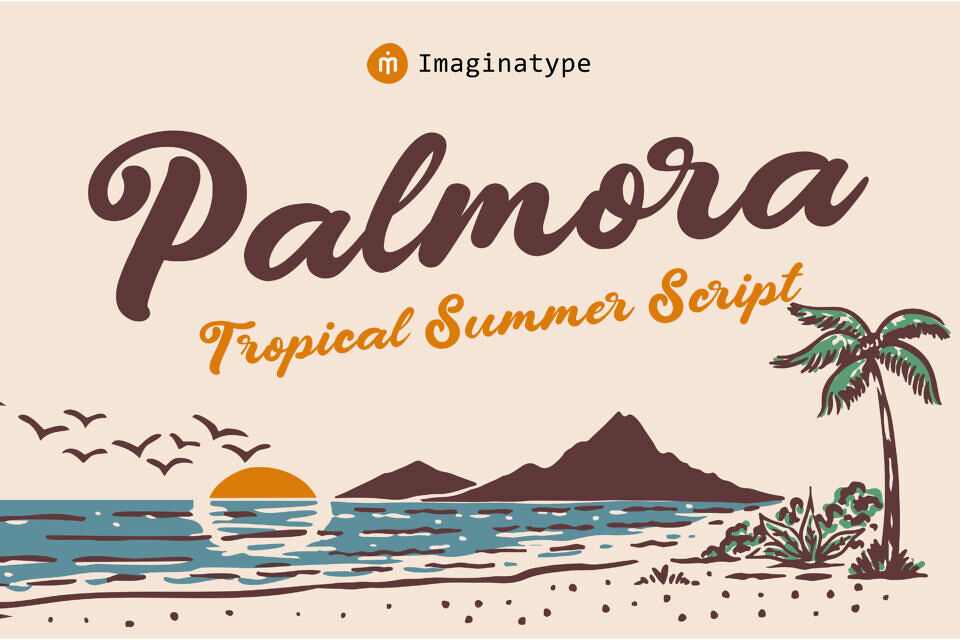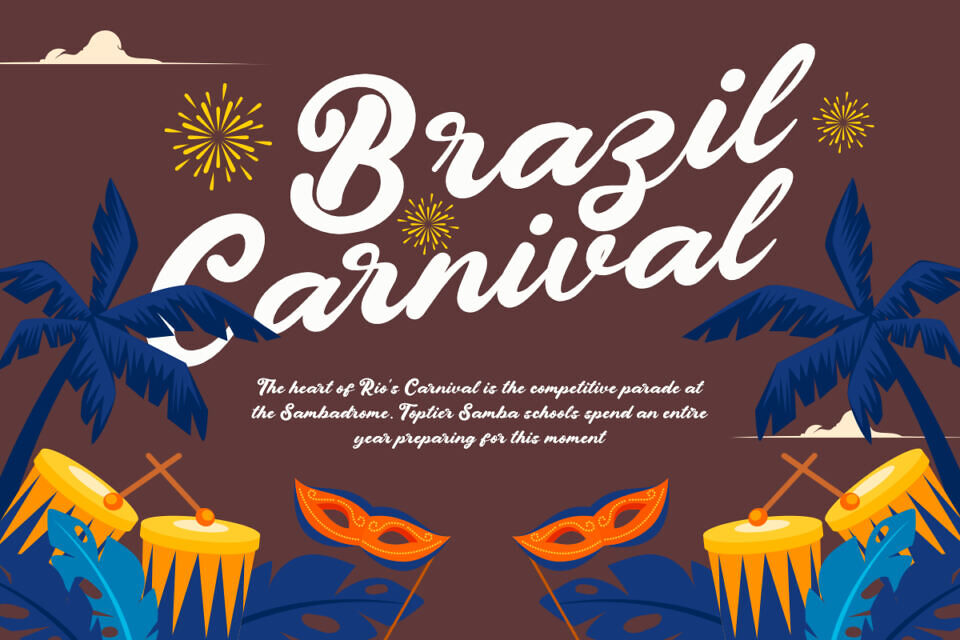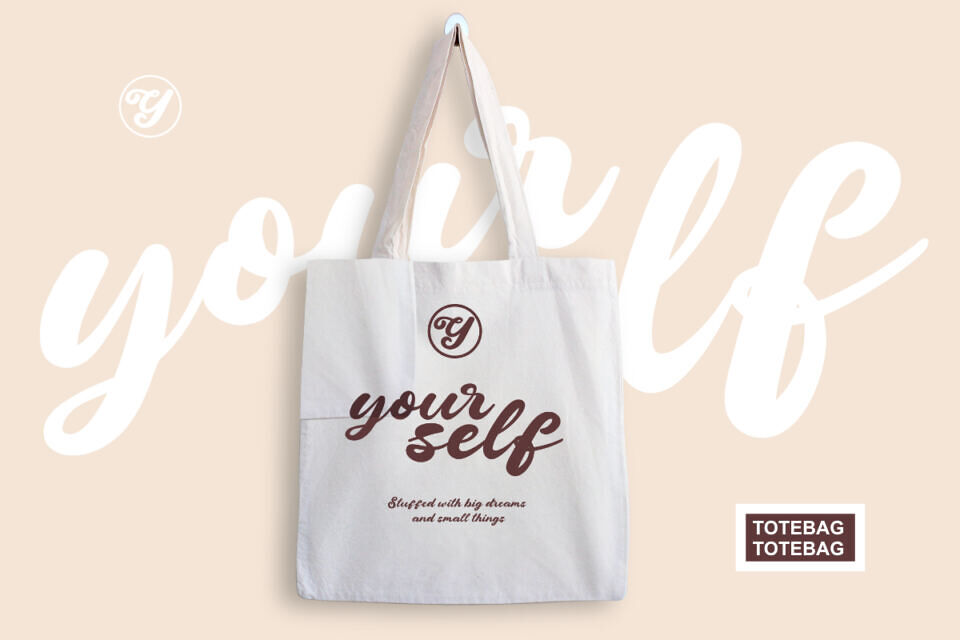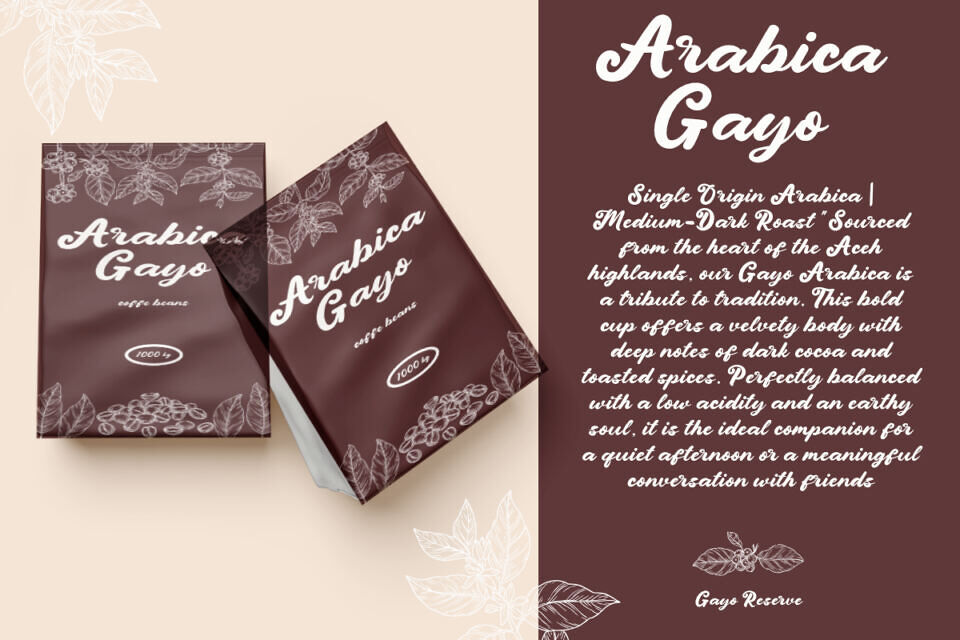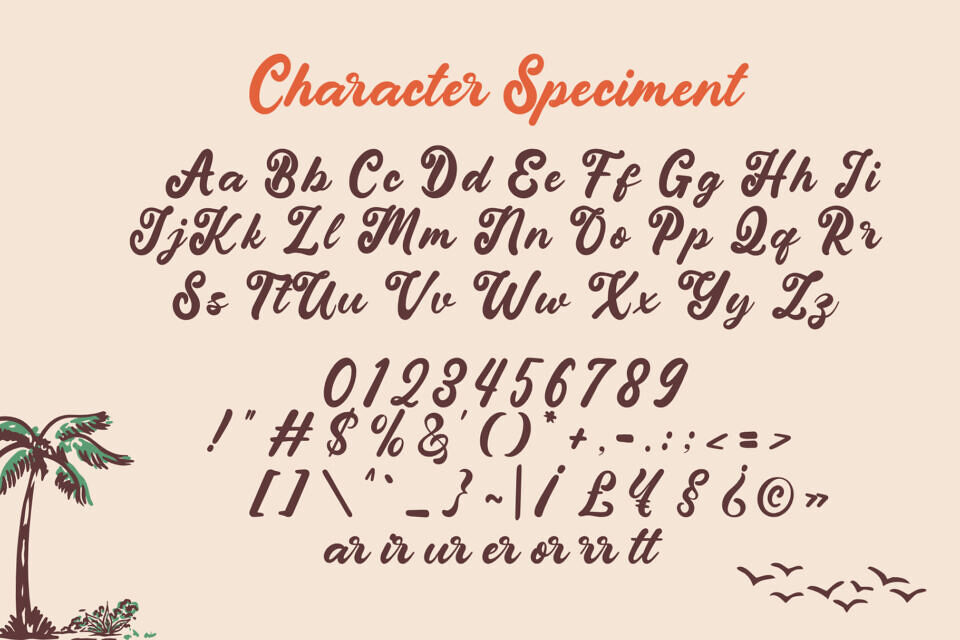
Palmora Font
Add a touch of tropical warmth to your designs with Palmora, a vibrant retro script font. Inspired by vintage travel posters and surf culture, it evokes nostalgia and positivity.
With its creamy texture and bold weight, Palmora is perfect for branding, logos, and packaging, capturing a 70s aesthetic. It’s ideal for apparel, prints, and merchandise, offering high readability and style for various design projects, from posters to social media headers.